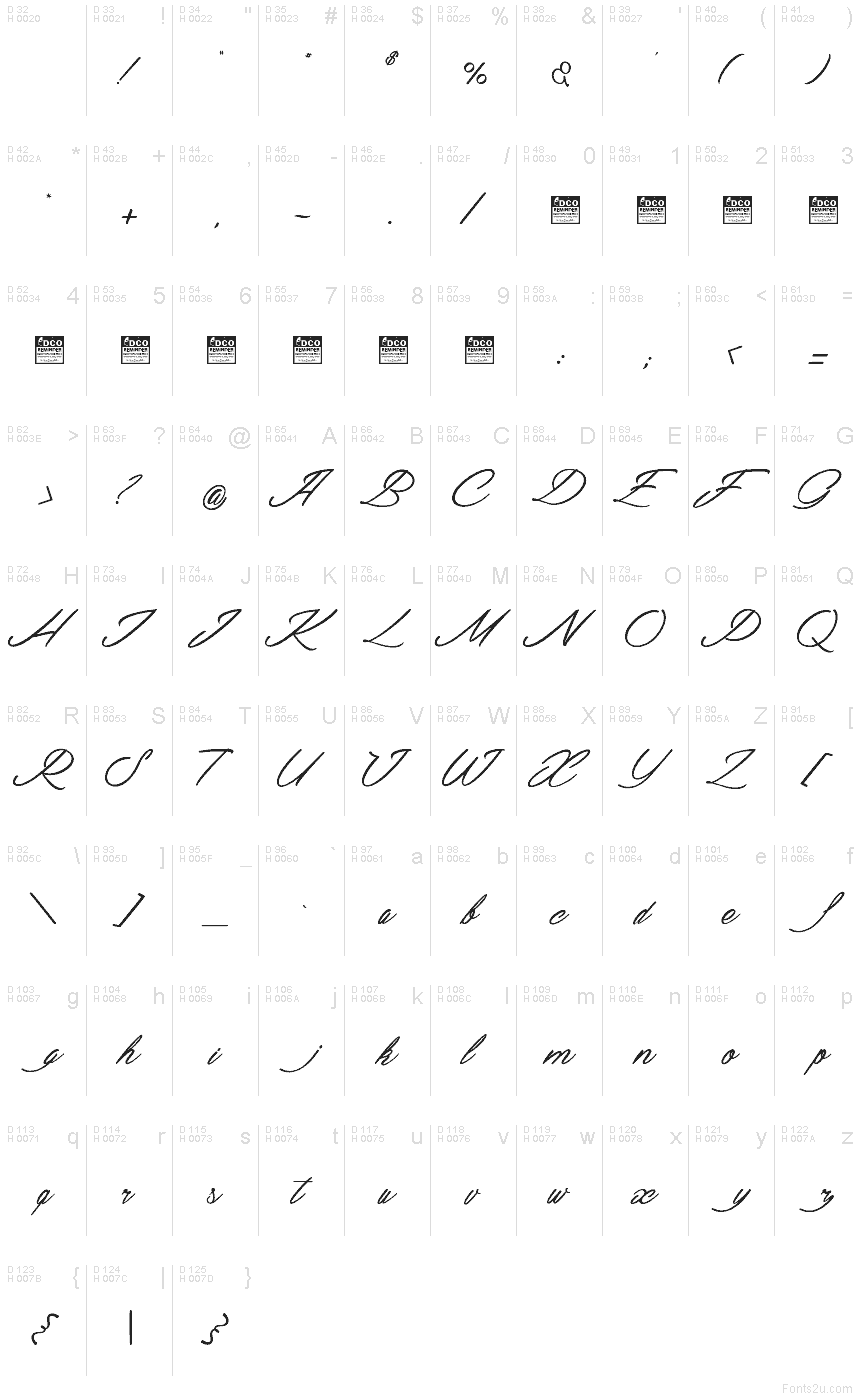
Kitten Café_PersonalUseOnly
Kitten Café font by Gregory Medina is a free calligraphy script font. For designers who struggle to find a script that looks sophisticated without turning fussy, this one gets the balance right: smooth, lightly slanted strokes, gentle contrast, and just enough swash to feel luxe. Letters connect with an easy rhythm, leaving airy counters that keep it crisp on screens and print alike.
Using Kitten Café, headlines glide while staying readable—great for café menus, boutique logos, product labels, wedding signage, event invites, and lifestyle packaging. This free font shines on creamy paper and soft palettes, and it scales beautifully at medium to large sizes. Pair it with a clean, unobtrusive sans for body text to let the script sing.